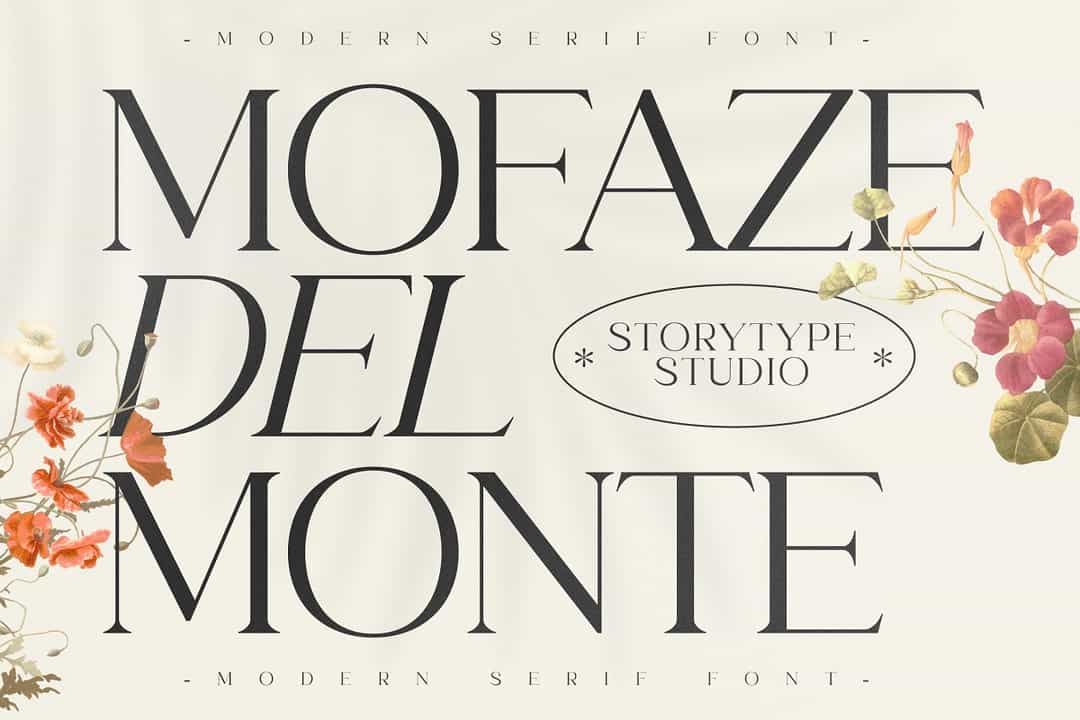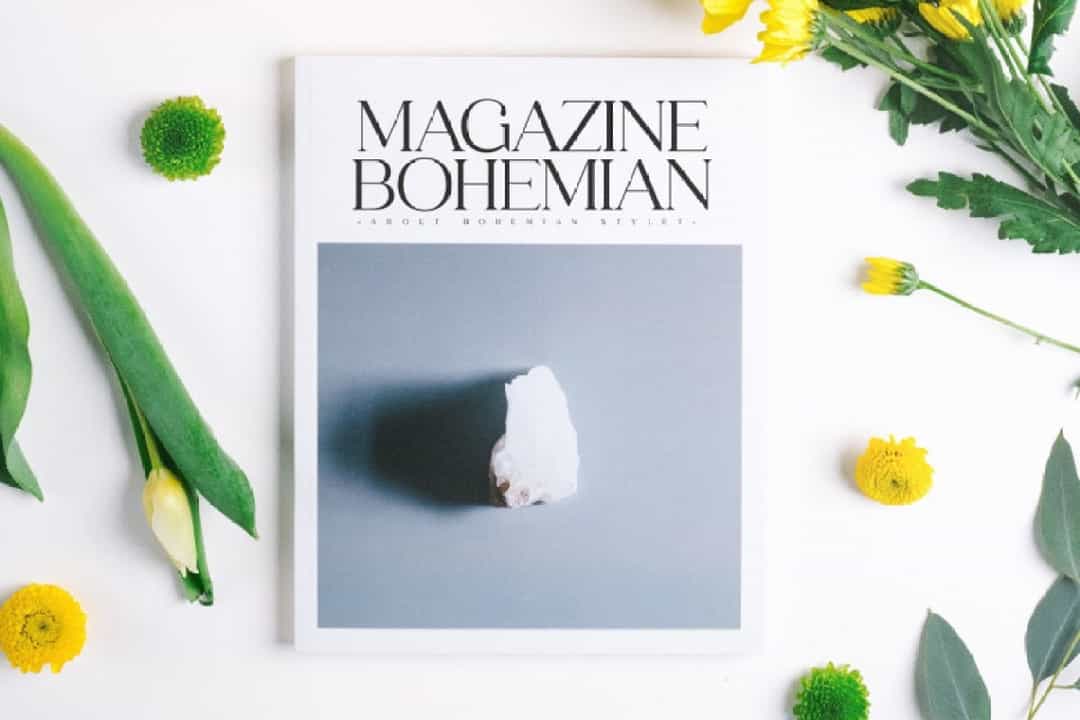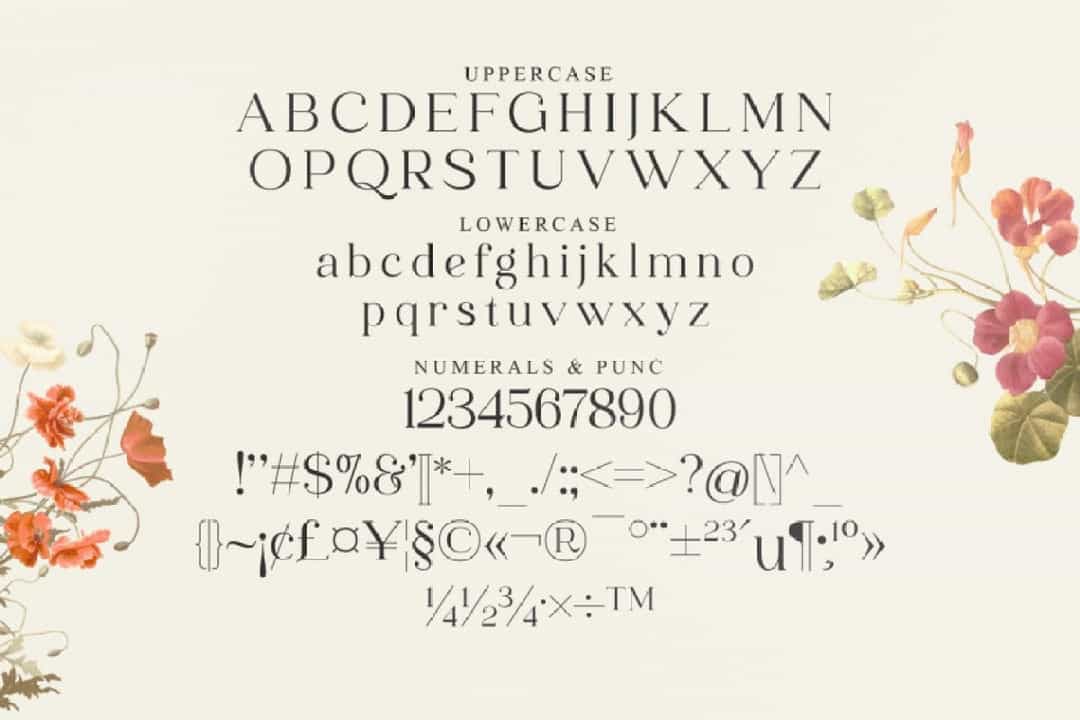
Mofaze Del Monte is a modern serif font with an eye-catching design and sophisticated appearance, ideal for logos, movie/book names, fashion label clothing labels, magazine letters and quotes, among many other uses.